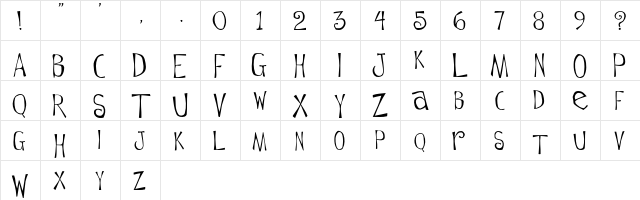
Flowerchild Regular
Design Context for Flowerchild Typeface
Flowerchild trades formality for fun, with bouncy, characterful letterforms that bring warmth and energy to any project.
Font Pairing: Pairs well with a rounded or humanist sans for body copy, maintaining the friendly tone without relying on Flowerchild to carry extended reading.
Pro Tip: Use Flowerchild at larger display sizes where its expressive character can land. Pair with a clean, simple sans for body copy to maintain readability.